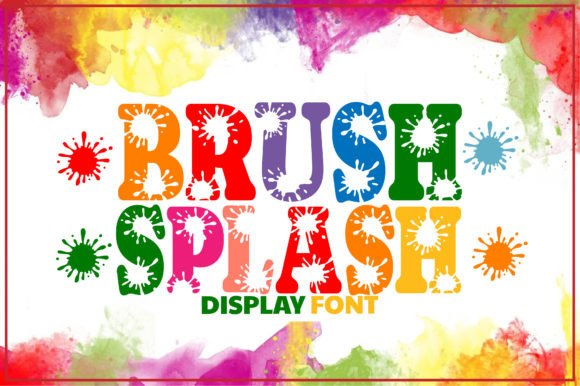
The Brush Splash Font: A Dramatic Display Font for Creative Projects
I’ll never forget the time I was working on a project for a client who wanted a bold, eye-catching font to match their brand’s personality. I scoured the internet for hours, trying to find the perfect one, but nothing seemed quite right. That was until I stumbled upon the Brush Splash font. ✨ It was love at first sight! The dramatic strokes, the playful splatters, and the overall energetic vibe were exactly what I needed to bring my design to life.
An Honest Review of Brush Splash
- 💥 Dramatic display font that’s perfect for headlines and titles
- 🎨 Highly versatile and suitable for a wide range of design projects, from crafty ideas to professional branding
- 🌈 Unique and creative aesthetic that’s sure to grab attention
- ✅ Easy to read, even in larger sizes
While Brush Splash is an amazing font, there are a few things to keep in mind 🤔:
- ⚠️ May not be suitable for body text or smaller sizes, as it can be a bit too ornate
- ⚠️ Limited use of OpenType features, but still offers some great stylistic alternates
The Story Behind Brush Splash
Brush Splash was designed with the creative hobbyist in mind. The designer wanted to create a font that was both fun and functional, with a unique aesthetic that would add a touch of personality to any design project. Inspired by the world of art and craft, Brush Splash is the perfect choice for anyone looking to add a bit of whimsy to their designs.
Q: Is Brush Splash suitable for body text?
A: While Brush Splash is an amazing font, it’s not ideal for body text. Its ornate and playful design makes it better suited for headlines, titles, and promotional materials. 📄
Q: Does Brush Splash support OpenType features?
A: While Brush Splash doesn’t offer a wide range of OpenType features, it does include some great stylistic alternates that can add variety to your design. 🎨